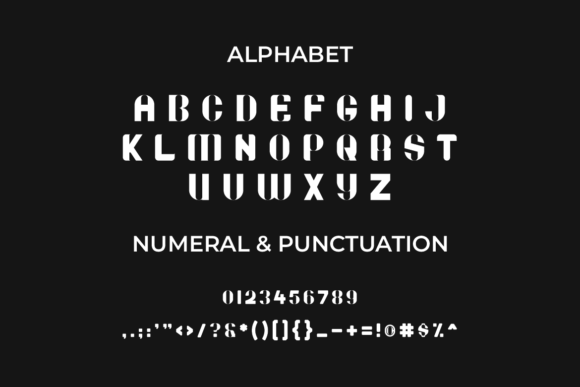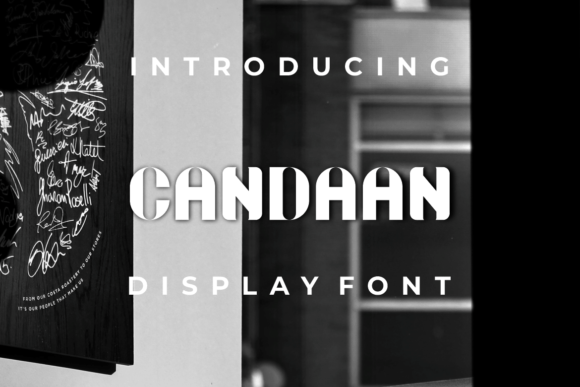
Candaan Font: The Bold and Daring Display Font for Your Creative Projects
Are you looking for a font that can add a touch of boldness and confidence to your designs? Look no further than Candaan Font! This strong and assertive display font is perfect for product packaging, branding, and other projects that require a daring typography. In this article, we’ll explore the features and benefits of Candaan Font, and how it can elevate your creative projects to the next level.
What is Candaan Font?
Candaan Font is a modern display font designed to make a statement. Its bold and assertive style makes it perfect for headlines, titles, and other design elements that need to grab attention. The font is clean, crisp, and highly legible, making it easy to read even in large sizes.
Key Features of Candaan Font
- Bold and Assertive Style: Candaan Font is designed to be bold and daring, making it perfect for projects that require a strong typography.
- Clean and Crisp Design: The font has a clean and crisp design, making it highly legible even in large sizes.
- Highly Versatile: Candaan Font can be used for a wide range of projects, from product packaging to branding and advertising.
- Easily Readable: The font is designed to be easily readable, even in large sizes, making it perfect for headlines and titles.
Benefits of Using Candaan Font
So, why should you use Candaan Font for your creative projects? Here are just a few benefits of using this amazing display font:
- Adds Confidence and Boldness: Candaan Font can add a touch of confidence and boldness to your designs, making them stand out from the crowd.
- Perfect for Product Packaging: The font is perfect for product packaging, as it can help your product stand out on store shelves.
- Great for Branding and Advertising: Candaan Font can also be used for branding and advertising, as it can help create a bold and memorable brand identity.
- Easily Customizable: The font is easily customizable, making it easy to adjust to fit your design needs.
How to Use Candaan Font
Using Candaan Font is easy! Here are just a few tips for incorporating this amazing display font into your creative projects:
- Use it for Headlines and Titles: Candaan Font is perfect for headlines and titles, as it can help grab attention and add a touch of boldness to your designs.
- Experiment with Different Sizes: Don’t be afraid to experiment with different sizes of Candaan Font, as it can be highly legible even in large sizes.
- Pair it with Other Fonts: Candaan Font can be paired with other fonts to create a unique and interesting design.
In conclusion, Candaan Font is a strong and assertive display font that can add a touch of boldness and confidence to your creative projects. With its clean and crisp design, highly legible style, and versatility, it’s perfect for product packaging, branding, and other projects that require a daring typography. So why not give Candaan Font a try today and see how it can elevate your designs to the next level?
For designers and crafters, Candaan Font can be a valuable addition to your toolkit. Here are just a few tips for incorporating this amazing display font into your workflow:
- Use it for Client Projects: Candaan Font can be used for client projects, such as branding and advertising campaigns.
- Experiment with Different Styles: Don’t be afraid to experiment with different styles and sizes of Candaan Font to find the perfect fit for your project.
- Pair it with Other Design Elements: Candaan Font can be paired with other design elements, such as images and graphics, to create a unique and interesting design.
With its bold and assertive style, clean and crisp design, and versatility, Candaan Font is the perfect addition to any designer’s or crafter’s toolkit. So why not give it a try today and see how it can elevate your designs to the next level?